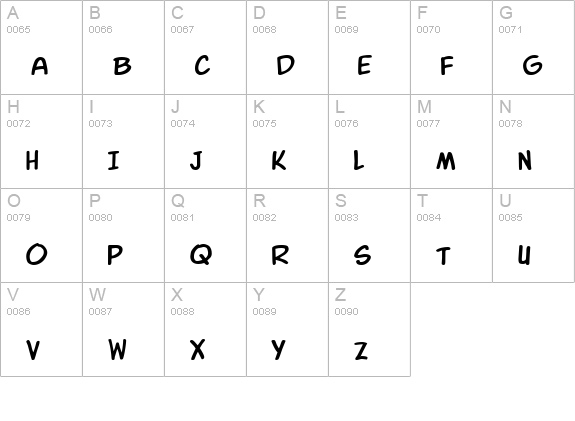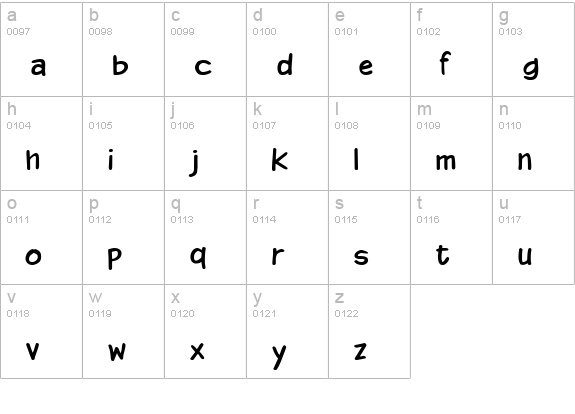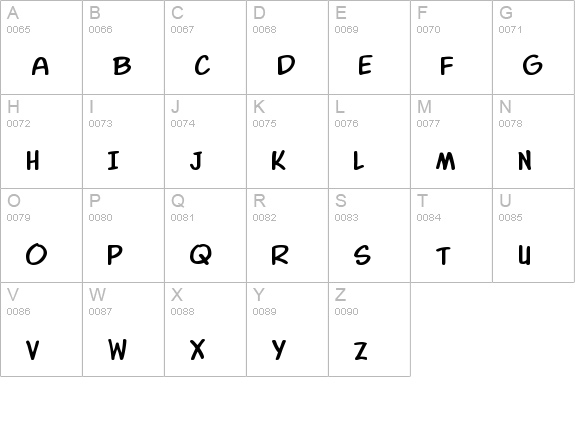
CK Man's Print Font Details
Introducing CK Man's Print font, a bold and distinctive typeface that exudes strength and masculinity. This unique font is perfect for creating impactful headlines, posters, and branding materials. With its clean lines and modern aesthetic, CK Man's Print font is sure to make a statement in any design project. Best of all, CK Man's Print font is available for free download at FontsMarket.com. Whether you're a professional designer looking to add a fresh touch to your creations or a hobbyist seeking to enhance your personal projects, this font is a versatile and dynamic choice. Don't miss out on the opportunity to elevate your designs with CK Man's Print font, the perfect blend of style and functionality. Download it today and let your creativity flow!